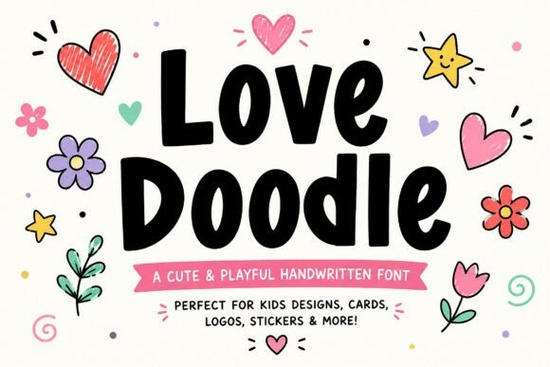
If you’ve been searching for a font that feels like a warm hug in type form, Love Doodle Font might be exactly what your next project needs. It’s not just another script it’s got personality. Hand-drawn charm, rounded edges, and a playful bounce make it feel instantly friendly. Whether you’re designing Valentine’s cards, classroom posters, or stickers for your Etsy shop, this font adds a cheerful vibe without trying too hard.
You’ll find it especially handy if you already enjoy fonts like Farmhouse Handwriting or Crafto both of which share that cozy, handmade appeal. But where those lean toward rustic or crafty, Love Doodle leans into pure joy. Think birthday banners, kids’ party invites, or even branding for a small bakery or toy shop. The letters look like they were sketched with a fat marker by someone smiling.
What kinds of projects work best with Love Doodle?
This font shines when the goal is to feel approachable, fun, and full of heart. Here’s where it really comes alive:
- Kids’ crafts and school projects – Teachers love it for bulletin boards, flashcards, and reward charts.
- Print-on-demand products – T-shirts, mugs, tote bags with phrases like “Best Day Ever” or “Snack Time Hero” look adorable in this style.
- Social media graphics – Instagram quotes, Pinterest pins, or TikTok thumbnails with bubbly text stand out more.
- Valentine’s and seasonal designs – Hearts, cupids, and candy-themed layouts pair perfectly with its sweet curves.
- Cricut and Silhouette cut files – The bold strokes hold up well when cut from vinyl or cardstock.
If you’ve used Candies Honeymoon before, you know how a whimsical script can set the tone. Love Doodle does something similar but with more bounce and less flourish making it easier to read at smaller sizes or from a distance.
How does it compare to other handwritten fonts?
Not all script fonts are created equal. Some are elegant, some are messy, and some like this one are just plain happy. Unlike formal calligraphy styles, Love Doodle doesn’t demand perfect kerning or spacing. Its irregularity is part of the charm. You don’t need to tweak every letter to make it feel “right.”
It pairs surprisingly well with clean sans-serifs for contrast. Try using it for headlines and a simple font like Montserrat or Lato for body text. That combo works great on product packaging or digital ads where you want to grab attention but still keep things readable.
And if you’re wondering how versatile it really is yes, it holds up in both color and black-and-white. The thick lines mean it won’t disappear when printed small, and the open shapes help avoid ink bleed on textured paper or fabric transfers.
A few real-life examples from users:
- A mom made matching birthday shirts for her kids using iron-on vinyl everyone asked where she got the font.
- A teacher designed a “Kindness Jar” poster for her classroom and said her students started copying the lettering in their journals.
- An Etsy seller reported higher engagement on listings after switching their banner text to Love Doodle Font.
Any tips for getting the most out of it?
Absolutely. Here’s what helps:
- Use sparingly. One headline or accent word is often enough. Too much can feel overwhelming.
- Add texture or shadows. A subtle drop shadow or chalkboard background enhances the hand-drawn feel.
- Pair with icons or doodles. Since the font already feels illustrated, adding little hearts, stars, or clouds around it ties everything together.
- Test print sizes. If you’re cutting it with a Cricut, do a test run first some letters (like lowercase ‘g’ or ‘y’) have long tails that might need adjusting depending on your material.
And if you’re exploring other options in the same playful family, check out this page for similar styles that mix well together. Sometimes layering two complementary fonts like Love Doodle for the main word and a simpler script for subtext creates a balanced, eye-catching design.
Bottom line: This isn’t a font for corporate reports or legal disclaimers. It’s for moments that deserve a little extra sparkle. Birthdays. Thank-yous. “I love you” notes. Classroom cheers. Craft fair signs. The stuff that makes people smile before they even read the words.
Quick checklist before you start:
- ✅ Pick a project that calls for warmth and playfulness
- ✅ Pair it with a clean, simple font for balance
- ✅ Test print or cut a sample if using for physical products
- ✅ Add a touch of texture or color to enhance the hand-drawn vibe